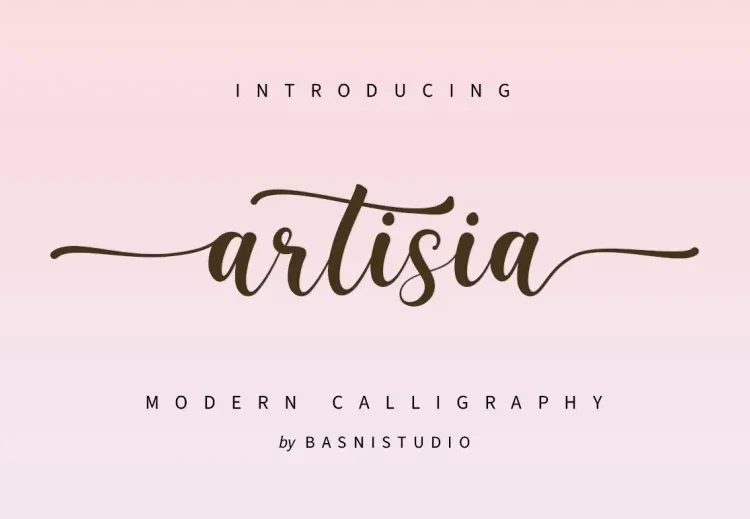
Artisia Font
Artisia is a modern script calligraphy font crafted with precision and style, making it an excellent choice for a wide range of design projects. Its elegant design ensures that it stands out in both branding and editorial contexts.
Key Features:
• Modern Script Calligraphy: Combines contemporary aesthetics with traditional calligraphic elegance.
• Multilingual Support: Includes a wide range of characters to accommodate various languages.
• OpenType Features: Offers punctuation, ligatures, and stylistic alternates, enhancing versatility and design options.
Applications:
• Branding: Perfect for creating distinctive and memorable brand identities.
• Websites: Adds a touch of sophistication to online content and design elements.
• Editorial Design: Ideal for magazines, invitations, and other print materials requiring an elegant touch.